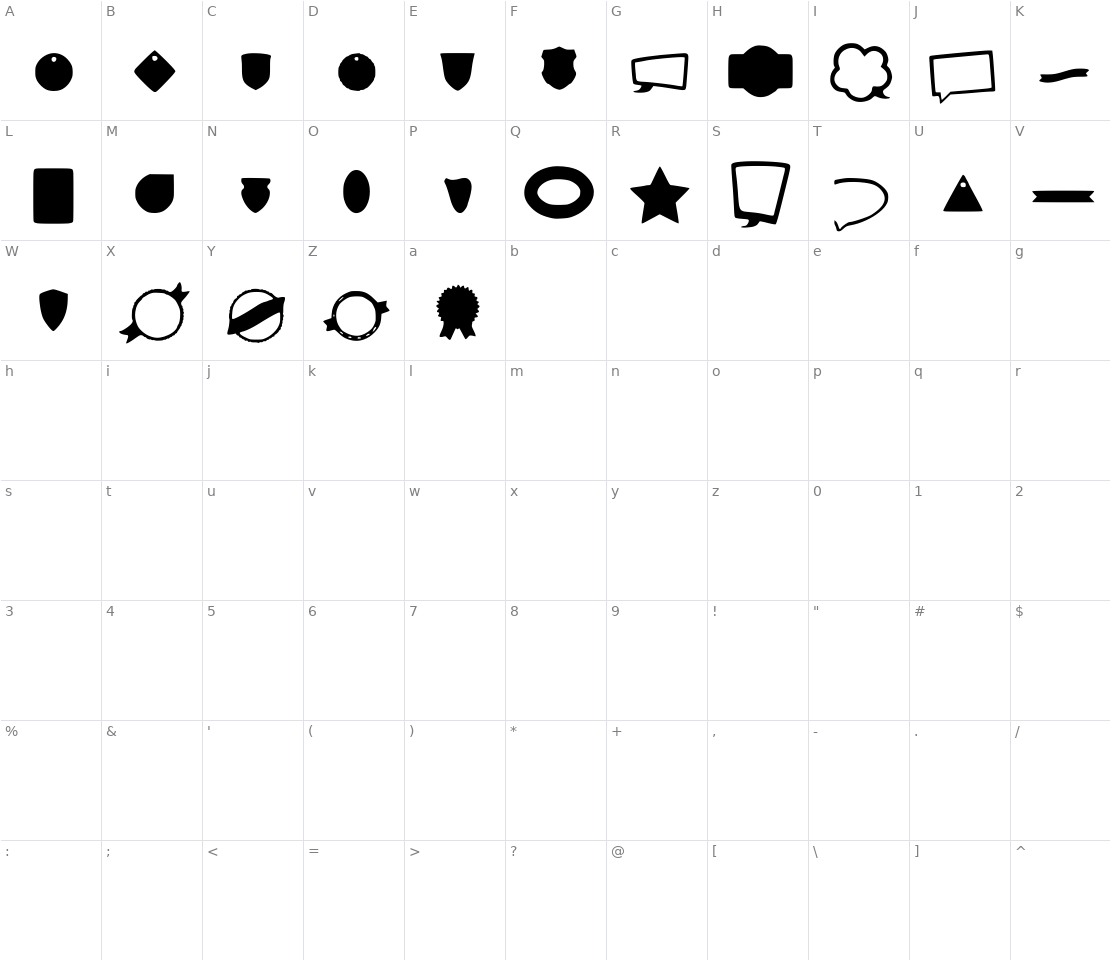
Labels
Labels is a dingbat-style font from Socialh made up of badge, ribbon, and label silhouettes rather than traditional letterforms. Each glyph is a decorative shape you'd typically find framing text on packaging, certificates, or vintage-style branding. Useful as a quick way to drop in vector-like emblem shapes without opening an illustration app.